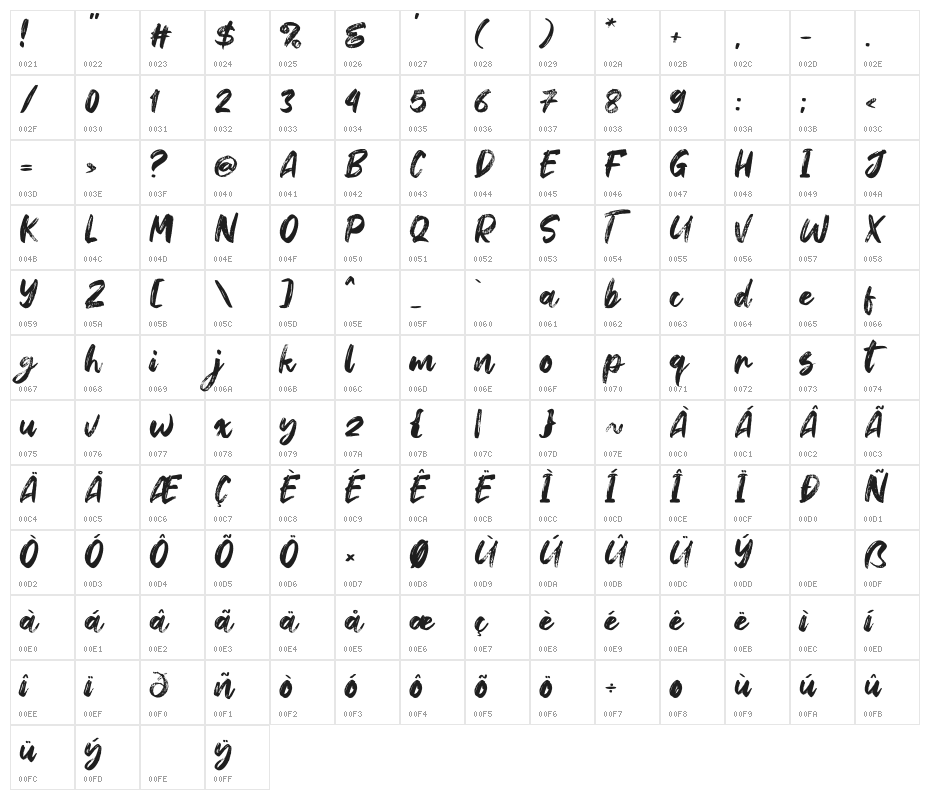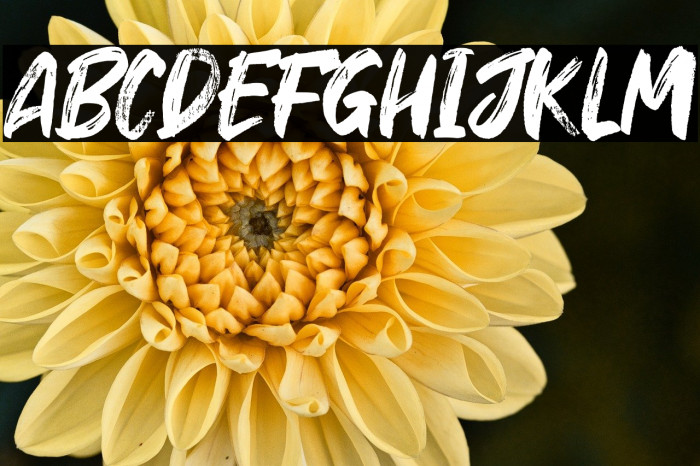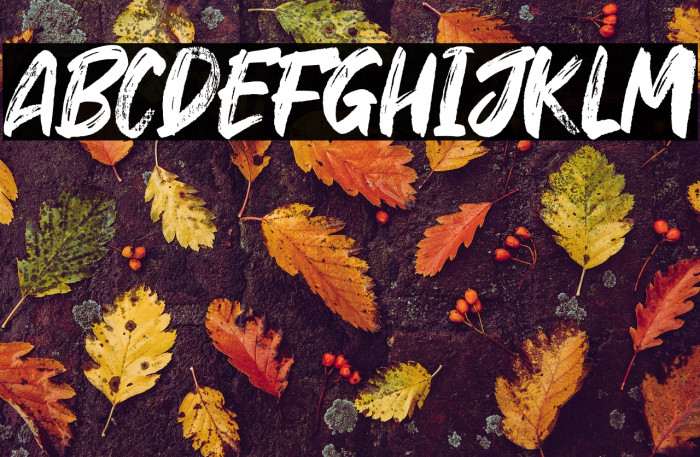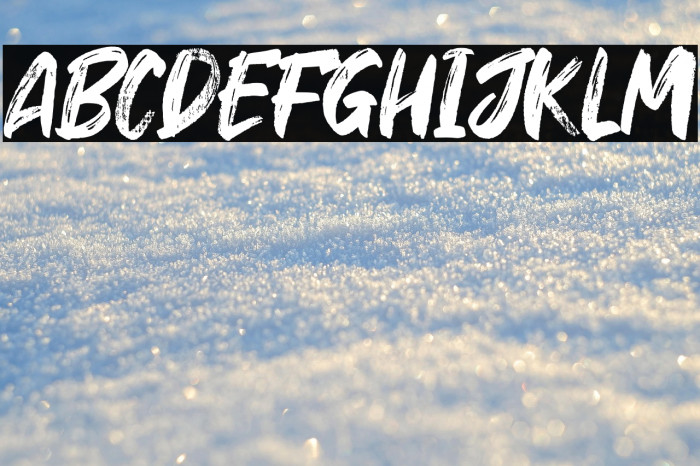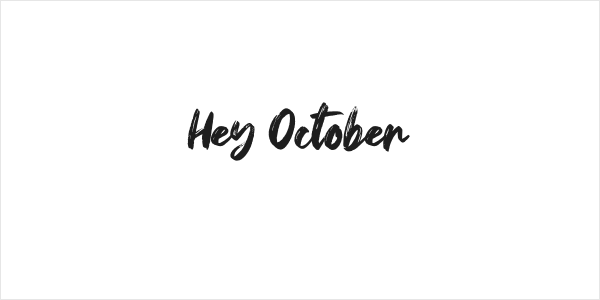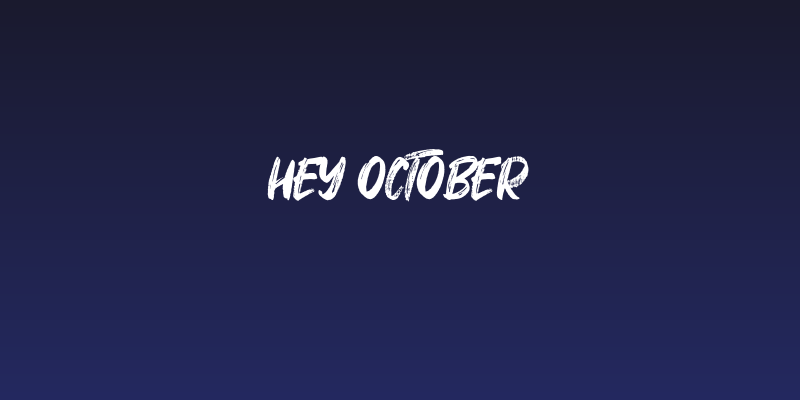
Hey October Font
Hey October Description
This font exudes a bold and expressive handwritten style, characterized by its dynamic brush strokes and textured appearance. The letters are crafted with a sense of movement and energy, giving them a lively and artistic feel. The uppercase and lowercase characters maintain a consistent style, with a slightly irregular baseline that enhances the handwritten effect. The numerals and special characters are equally expressive, ensuring a cohesive look across all elements. This font's textured strokes add depth and personality, making it stand out in any design.
| Use Case | Logos, Headlines, Posters |
| Proposed Projects | Ideal for creative projects such as posters, branding, social media graphics, and invitations where a personal and artistic touch is desired. |